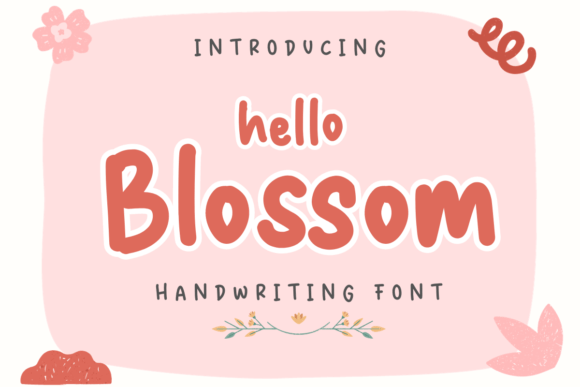
In the realm of typography, where words dance and visual aesthetics intertwine, the "Hello Blossom Font" emerges as a captivating dance partner, inviting you to express your creativity with a unique flair. Designed with meticulous care, this hand-drawn script font exudes an aura of authenticity and natural allure that is simply irresistible.
With its graceful strokes and elegant curves, the "Hello Blossom Font" possesses an inherent charm that adds a touch of sophistication to your creative endeavors. It's the perfect choice for those seeking a font that effortlessly elevates their work, whether it be in the realm of magazines, wedding invitations, heartfelt quotes, branding, logos, or any other design project that calls for a touch of distinction.
Crafted with precision and an artistic eye, the "Hello Blossom Font" perfectly captures the essence of handwritten beauty, infusing your designs with a sense of warmth and personality. Its distinctive style is sure to captivate your audience, leaving a lasting impression that speaks volumes about your attention to detail and creative flair.
Beyond its aesthetic appeal, the "Hello Blossom Font" is remarkably versatile, adapting seamlessly to a wide range of design applications. Whether you're looking to create stunning wedding invitations that exude romance and elegance, design logos that command attention with their individuality, or add a touch of whimsy to your branding materials, this font is your steadfast companion, ready to transform your ideas into visual masterpieces.
With the "Hello Blossom Font," you're not just downloading a font; you're acquiring a creative tool that unlocks a world of possibilities. It's an investment in your creative journey, a key to unlocking the full potential of your design projects. Embrace the beauty of handwritten charm and watch your designs blossom into captivating works of art.